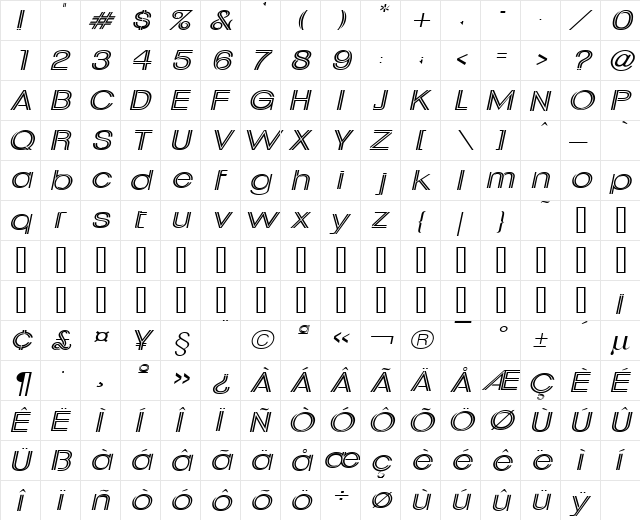
Downtown Wide Italic
Design Context for Downtown Wide Typeface
Downtown Wide is a composed and adaptable typeface that performs quietly and consistently across a wide range of design contexts. Its italic angle brings a sense of urgency and motion to the letterforms.
Pro Tip: Try Downtown Wide for annotation and caption copy alongside an upright companion — the contrast in angle creates a dynamic but ordered typographic system.